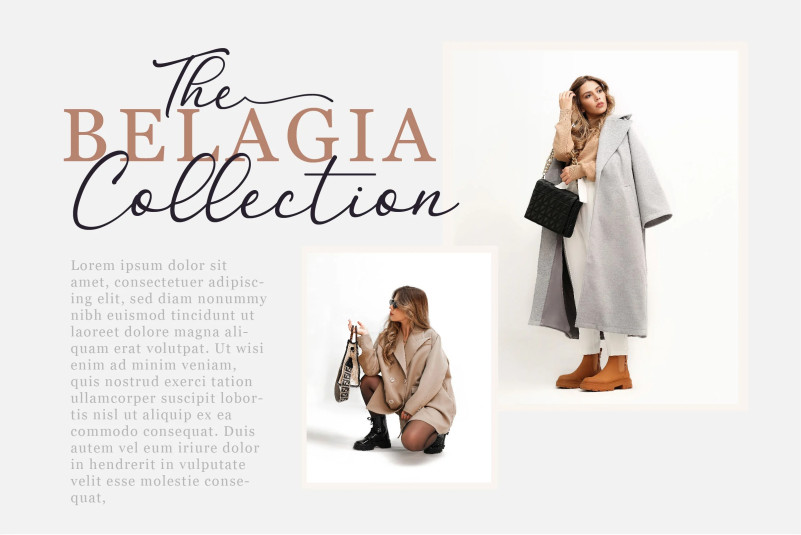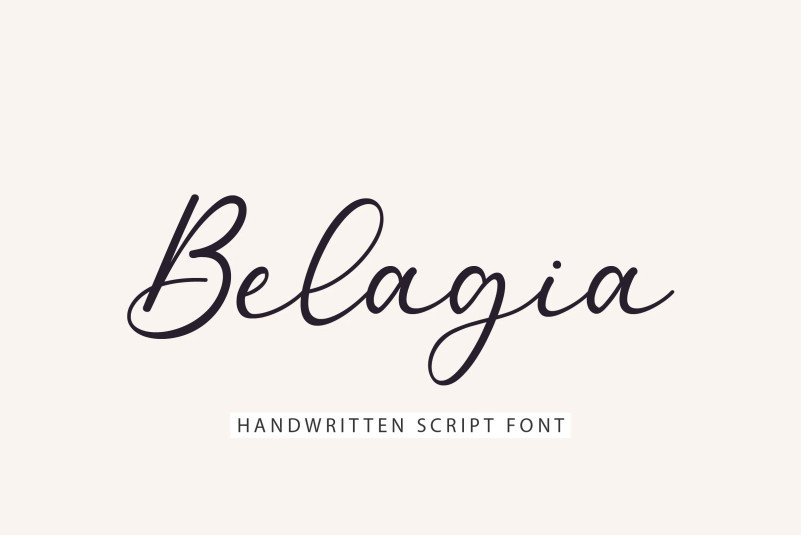
Belagia Font
Belagia Script Font,  Ideal for logos, handwritten quotes, product packaging, header, poster, merchandise, social media & greeting cards.
– Uppercase, Lowercase, Numeral & Punctuation
– Alternate Letters, Ligature & Swash/Tail